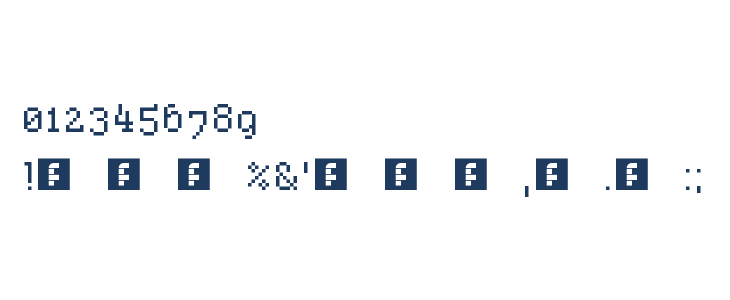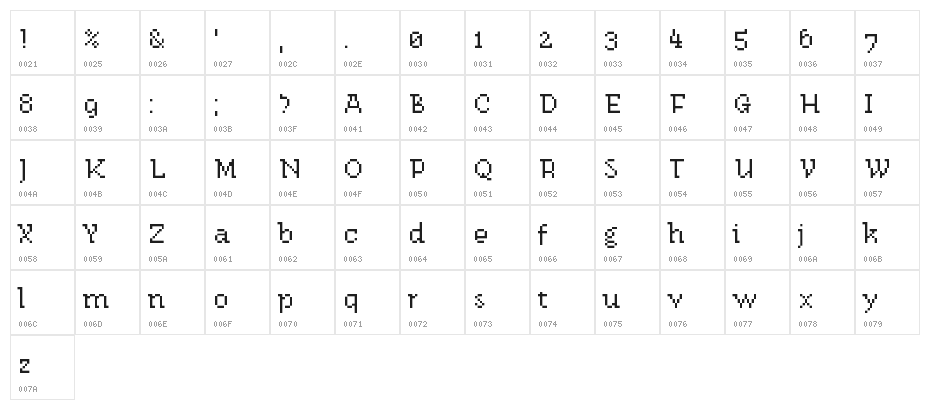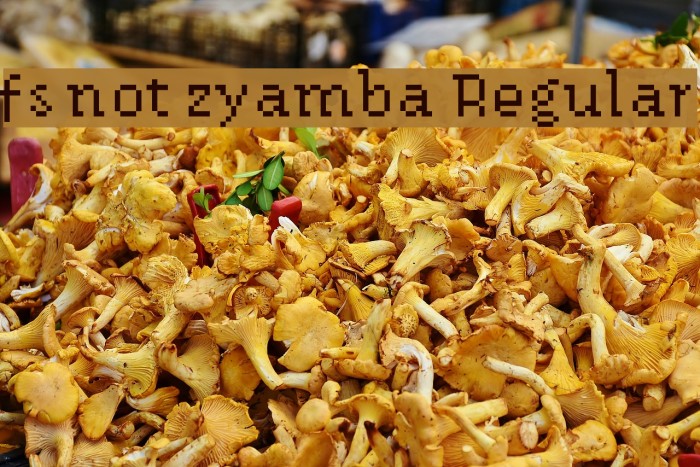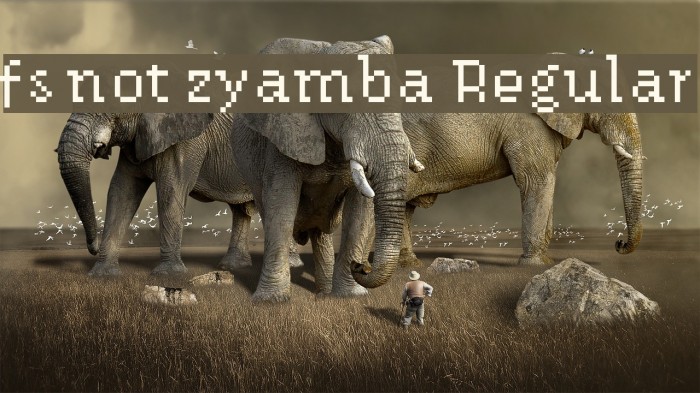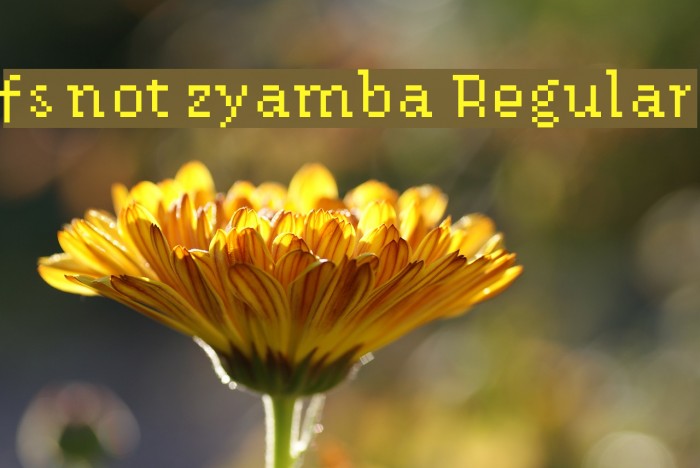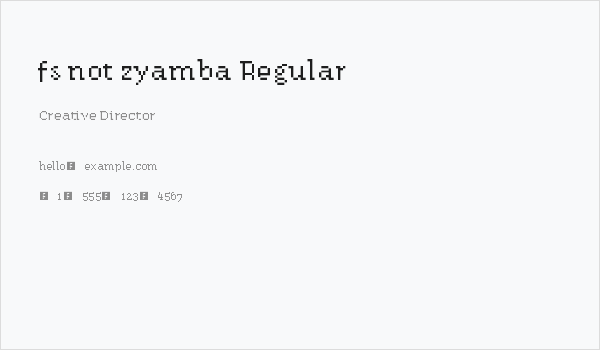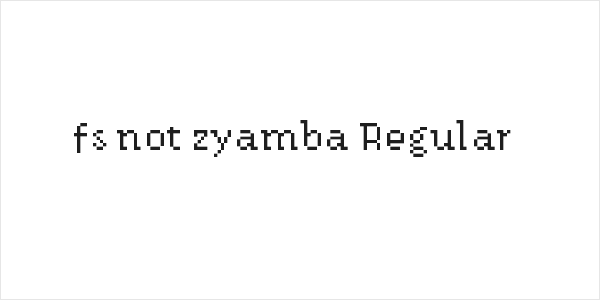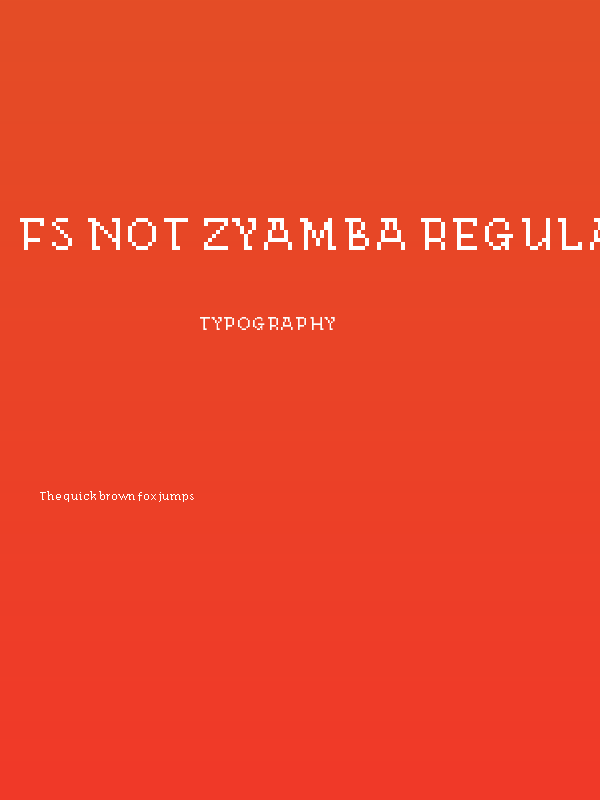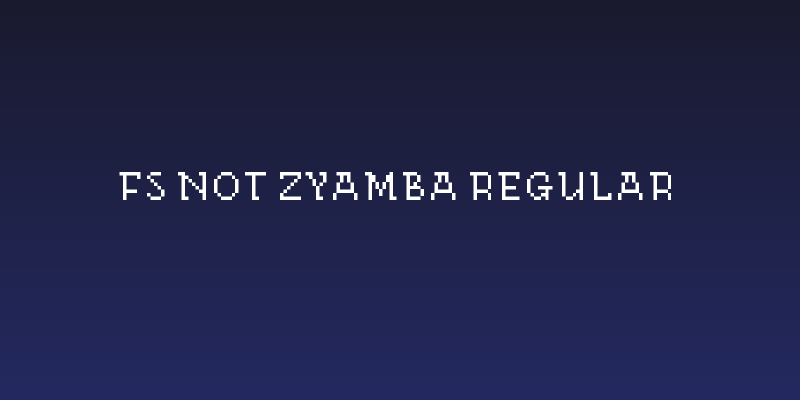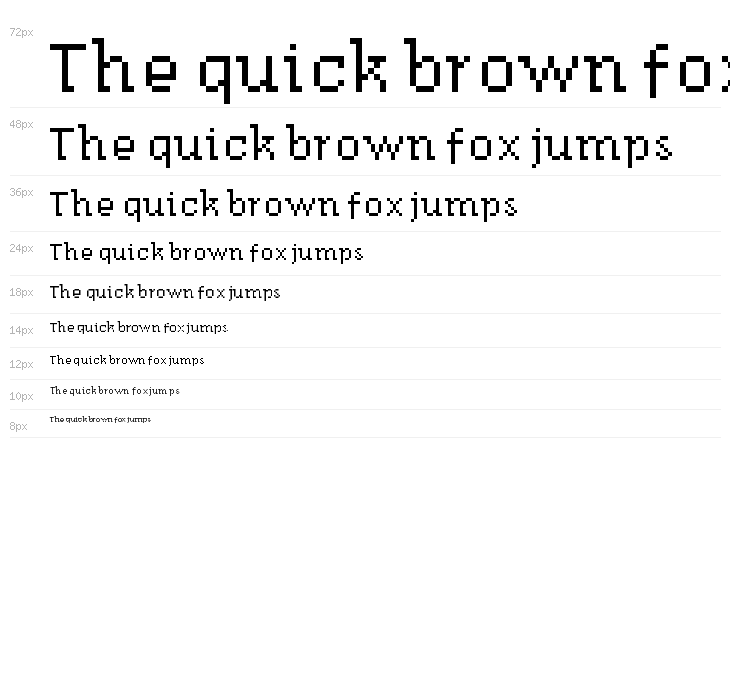
fs not zyamba Regular Font
fs not zyamba Regular Description
This font features a pixelated, blocky design reminiscent of early digital or video game typography. Each character is composed of distinct square pixels, creating a retro and nostalgic feel. The uppercase and lowercase letters maintain a consistent height and width, emphasizing uniformity. Numbers and special characters follow the same pixelated style, ensuring a cohesive look across all glyphs. The font's simplicity and geometric structure make it highly legible, even at smaller sizes, while its unique style adds a playful and vintage touch to any design.
| Use Case | Logos, Headlines, Digital Art |
| Proposed Projects | Ideal for video game design, retro-themed posters, digital art projects, and any creative work that seeks to evoke nostalgia for early computing aesthetics. |